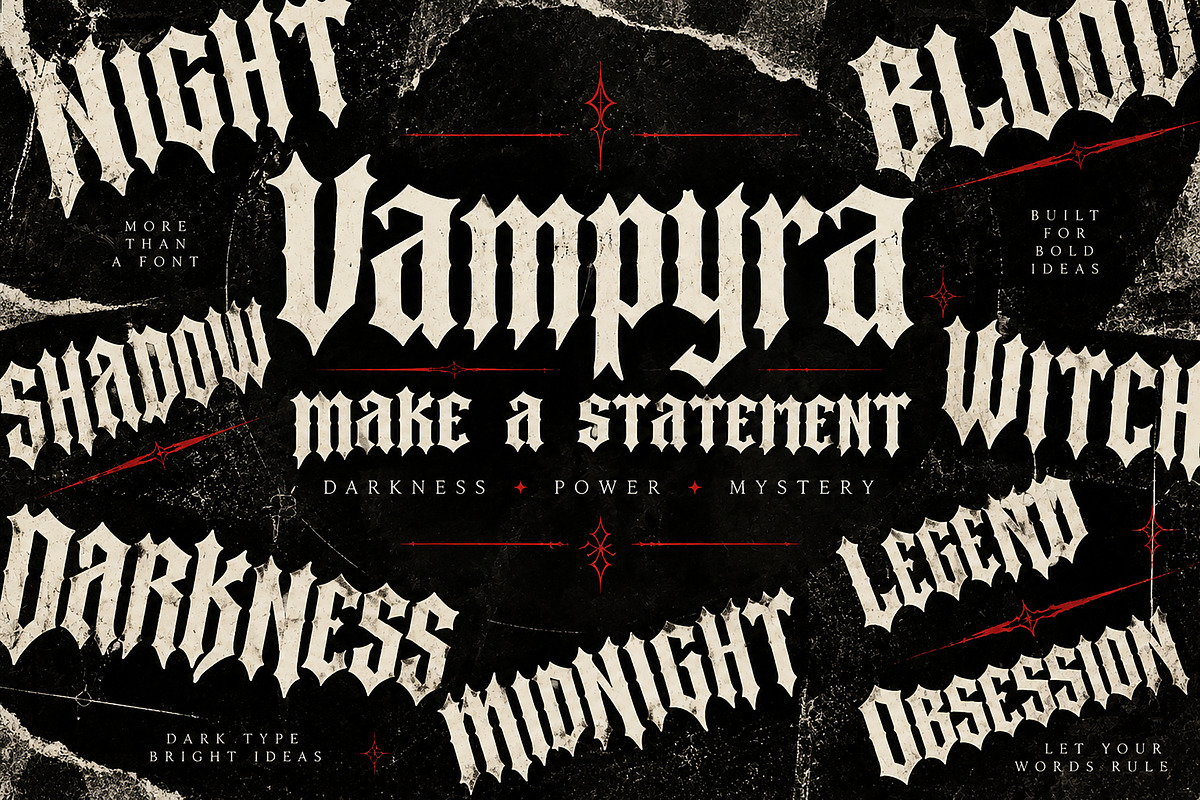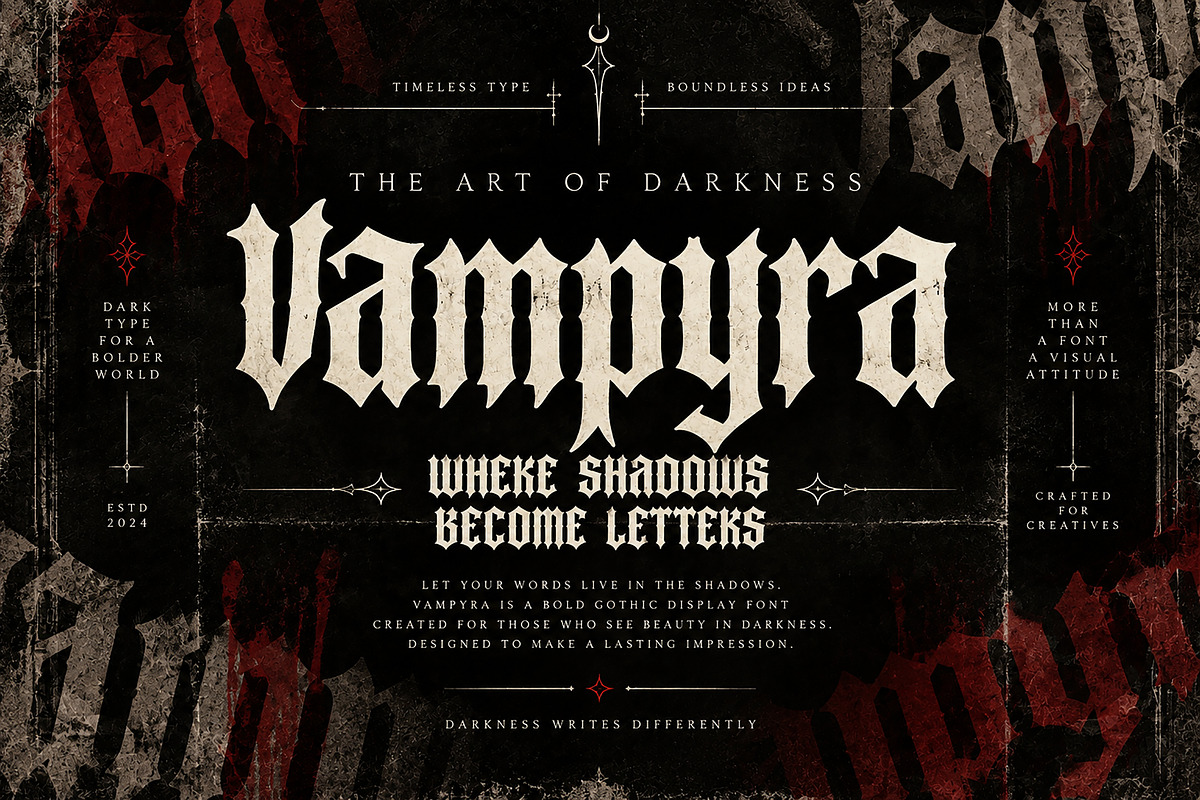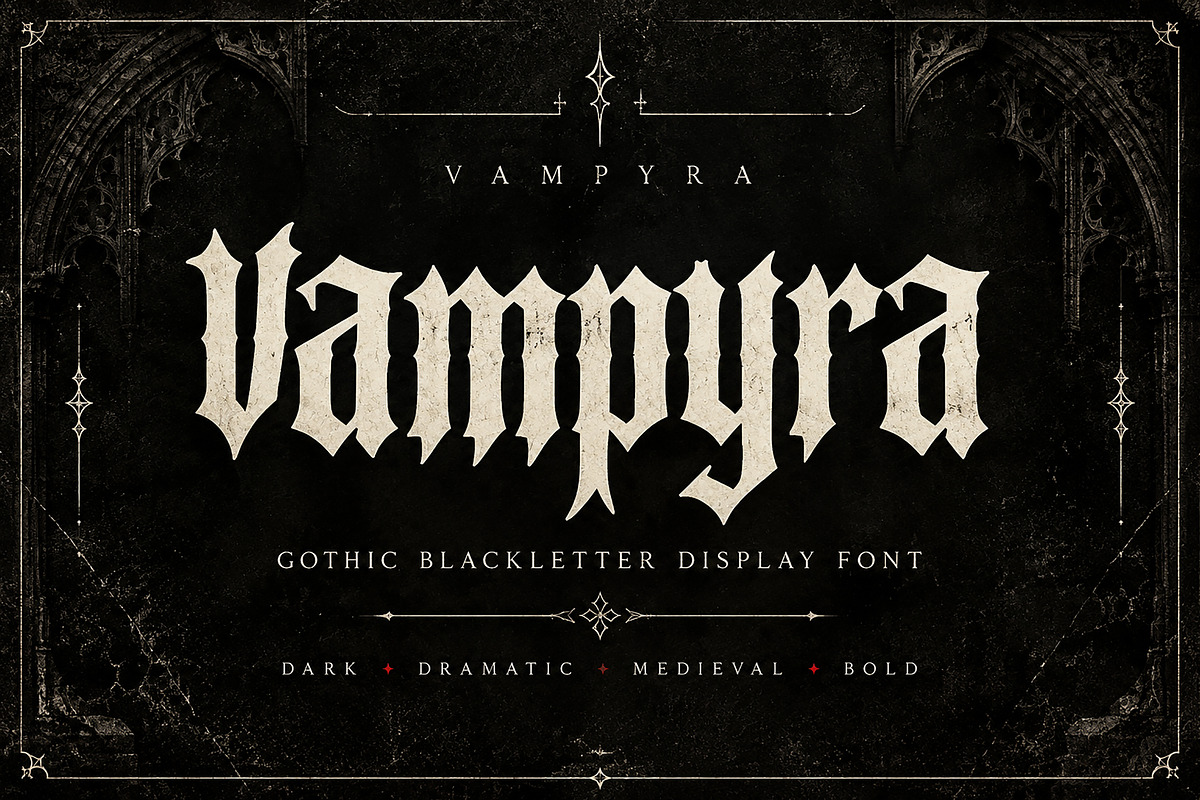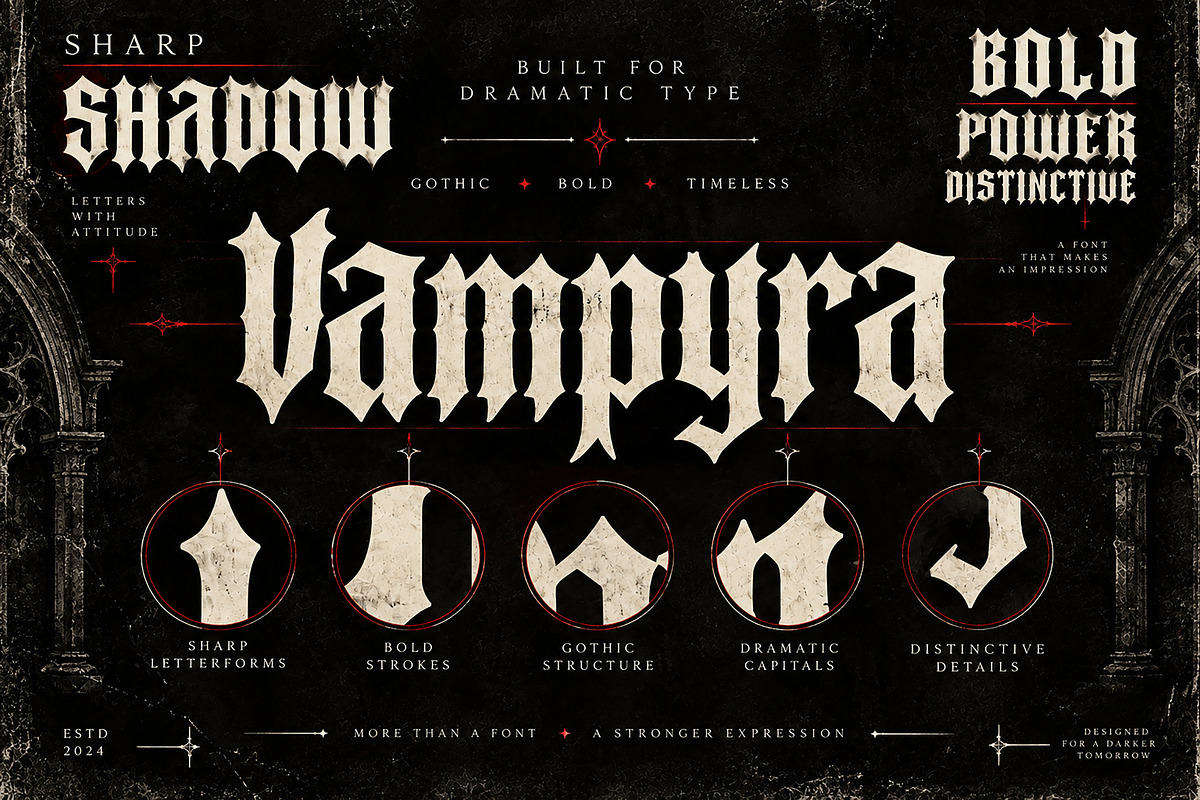
Vampyra
Vampyra – Gothic Blackletter Display Font
Short Description
Vampyra is a bold Gothic Blackletter display font with sharp, dramatic letterforms and a dark medieval character. Perfect for posters, logos, branding, album artwork, apparel, labels, tattoos, headlines, and other bold display designs.
VAMPYRA – Gothic Blackletter Display Font
Enter a darker world of typography with Vampyra, a bold and dramatic Gothic Blackletter display font designed to make a powerful visual statement.
Featuring sharp, distinctive letterforms and a strong medieval-inspired structure, Vampyra brings a dark, mysterious, and timeless character to your designs. Its dramatic appearance makes it especially suitable for attention-grabbing headlines, titles, logos, posters, and other display-focused projects.
Gothic and dark-themed branding
Logo and wordmark design
Posters and flyers
Album and music artwork
T-shirt and apparel designs
Tattoo-inspired artwork
Book and cover titles
Horror and Halloween designs
Medieval-inspired projects
Labels and packaging
Headlines and typography compositions
Editorial and poster design
Merchandising and print projects
Bold Gothic Blackletter style
Sharp and distinctive letterforms
Dramatic display appearance
Medieval-inspired aesthetic
Strong visual impact
Suitable for headlines and large typography
Great for dark, mysterious, and alternative design projects
Font Type: Gothic Blackletter Display Font
Vampyra is created for designers who want their typography to stand out and bring a powerful dark aesthetic to their creative work.
Make a statement. Embrace the darkness. Create with Vampyra.